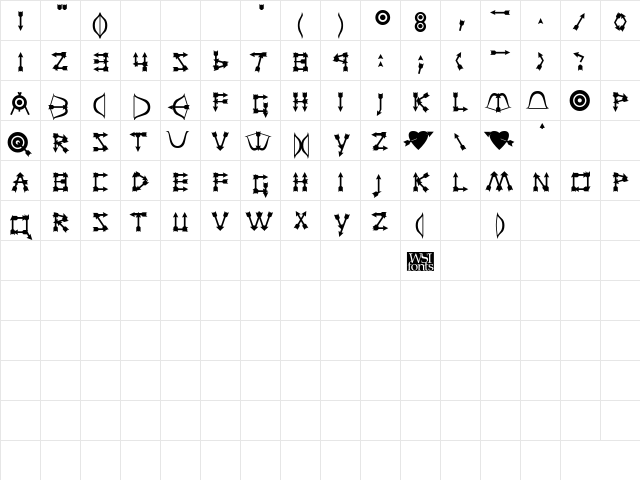
ArcheryDisplay Bold
Design Context for ArcheryDisplay Typeface
ArcheryDisplay brings ornamental detail and strong personality to headlines and identities, where visual impact matters more than quiet functionality. The heavy weight commands attention and anchors typographic hierarchies.
Font Pairing: Pair with a clean neutral sans-serif for body copy to let ArcheryDisplay's character lead without overwhelming the composition.
Pro Tip: Treat ArcheryDisplay as the centrepiece of your typographic hierarchy. One strong heading set in a decorative face can carry an entire layout.